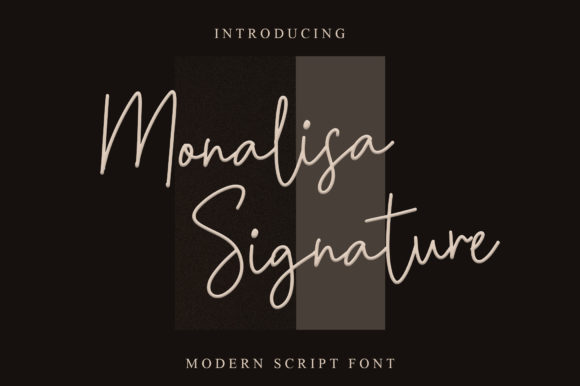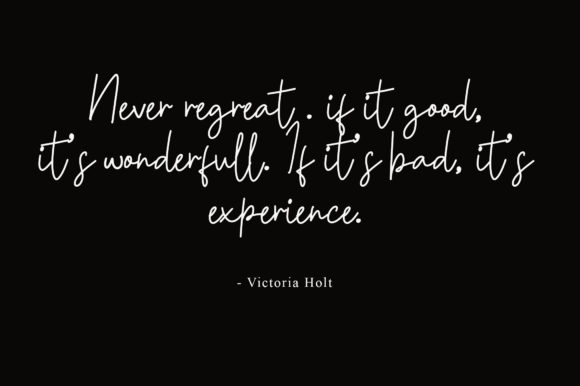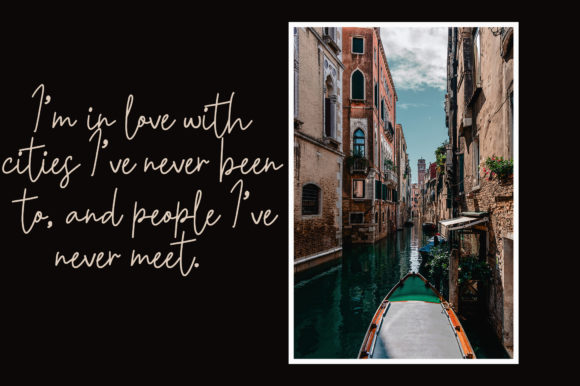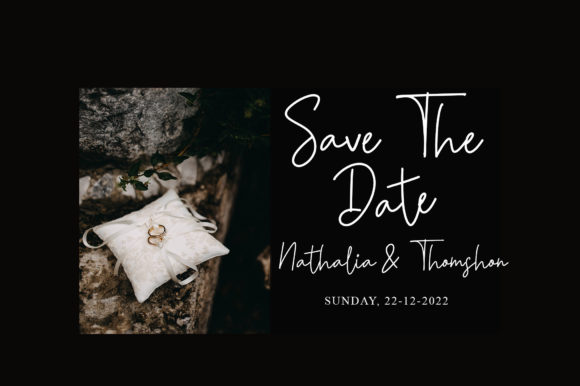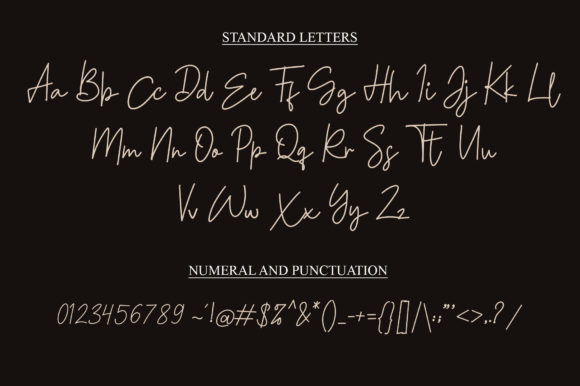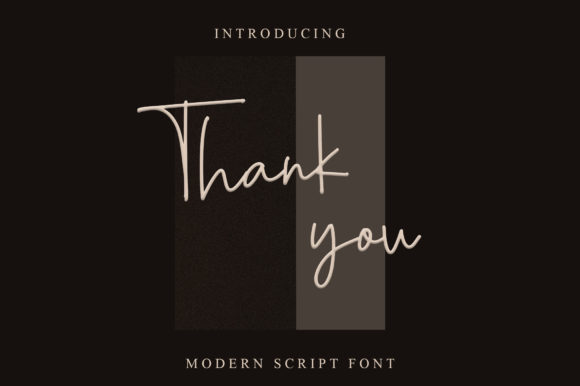
Monalisa Signature Font
About Monalisa Signature Font
Monalisa Signature is a delicate, thin lettered and refined script font that emanates sophistication and elegance. Its stylish alternates and ligatures make this font the perfect match for any project.